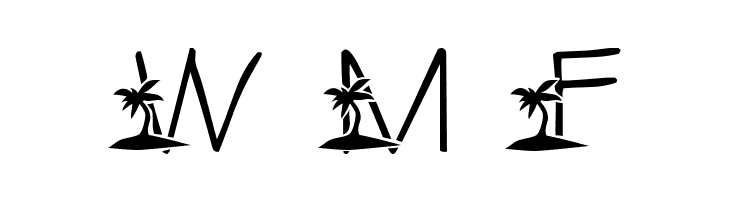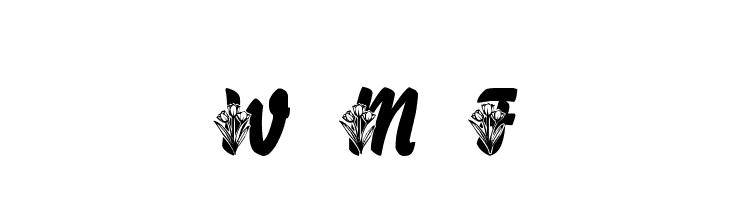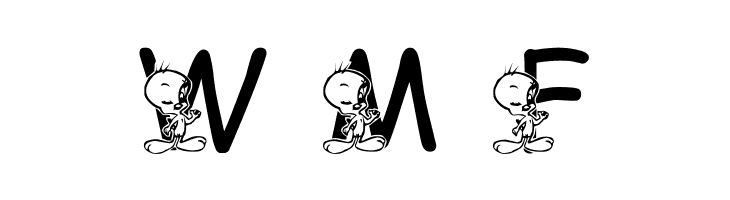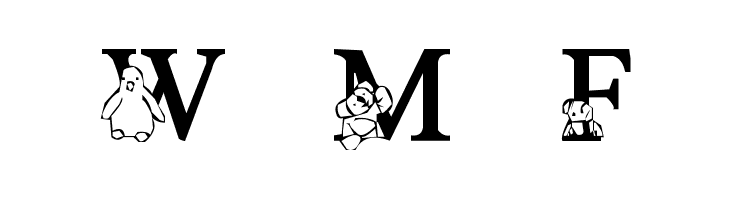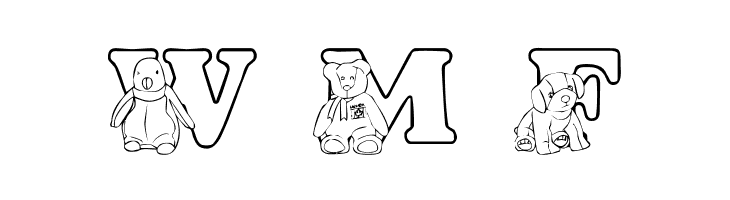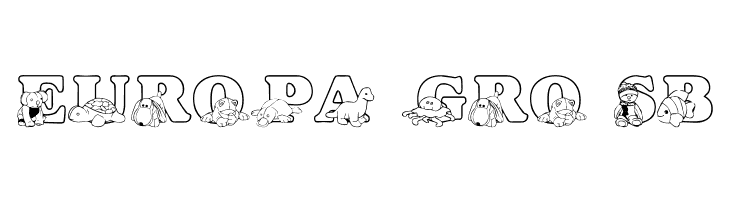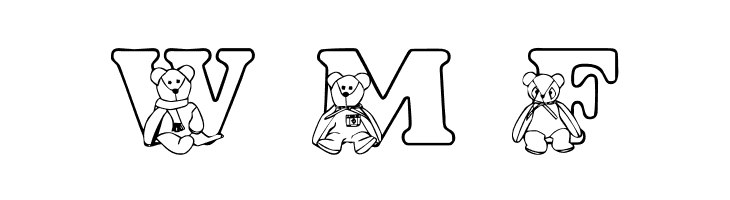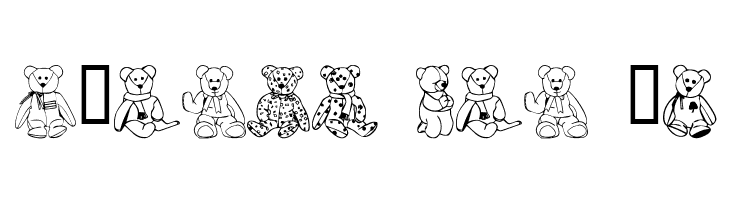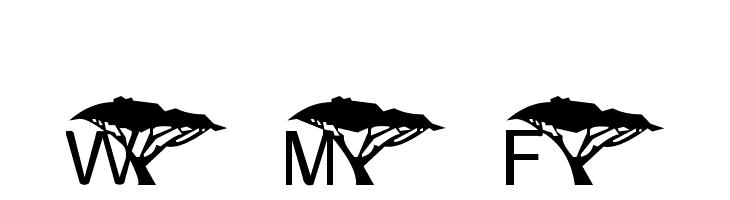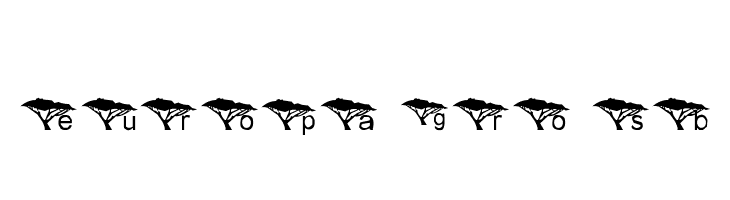
A decorative font with tropical island motifs integrated into each letter.
A bold, decorative font with tulip motifs integrated into each character.
A festive font with letters inside turkey silhouettes, perfect for holiday themes.
A playful, cartoon-themed decorative font with integrated character designs.
A playful font with baby animal illustrations integrated into each letter.
A playful font with bold letters and charming animal illustrations.
A whimsical font with teddy bear illustrations integrated into each letter.
A bold, decorative font with acacia tree silhouettes atop each character.
A bold, geometric font with sharp edges and uniform strokes, ideal for impactful design.
A bold, decorative font with winter sports motifs integrated into each character.